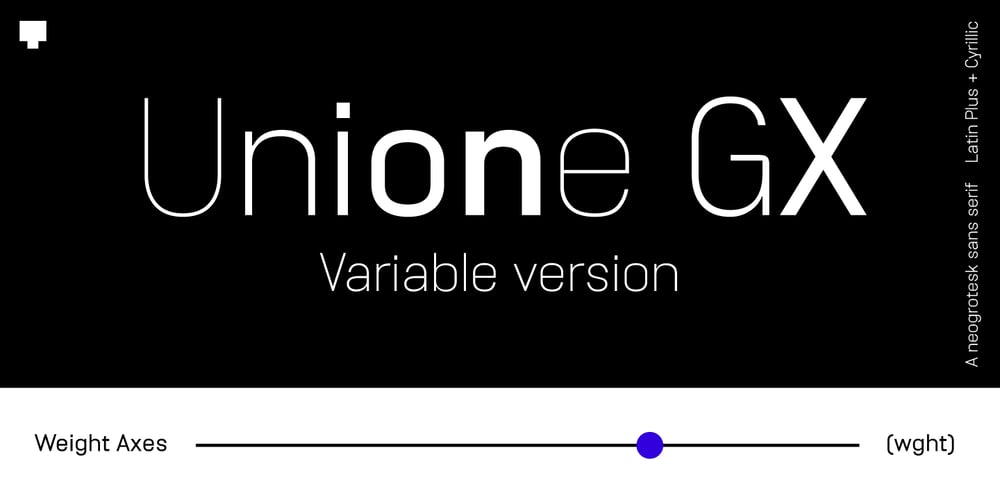
Unione GX Font Family was designed by TOMO Fonts and published by TOMO Fonts. Unione GX contains 1 styles and family package options. UnioneGX by TOMO FONTS is the variable version of Unione. A clean and modern sans-serif type family with a geometric touch. It has a single axes (Weight / Wgth) that you can control with a slider on Desktop apps or you can use it for the web, dramatically reducing file size for your web project. It’s like magic! but no. If you want to learn more about variable fonts, please click here or if your are interested in web context read here. Geometric and modern Sans-Serif VARIABLE FONT! This means, you control the weight! 1000+ glyphs per font. Latin Plus support, Extended Latin Cyrillic support, Basic & Extended Fractions Circled Numerals & Letters Lots of Stylistic Alternates Interested in Unione ‘static’ family? Check it here